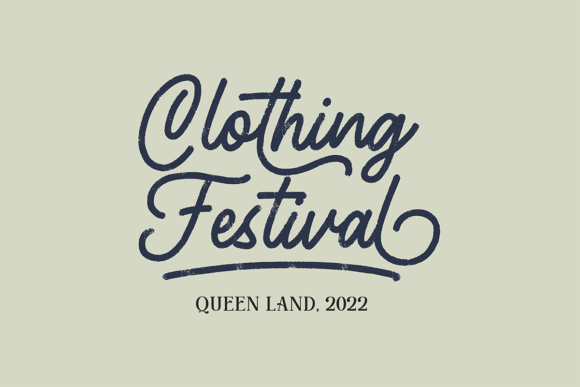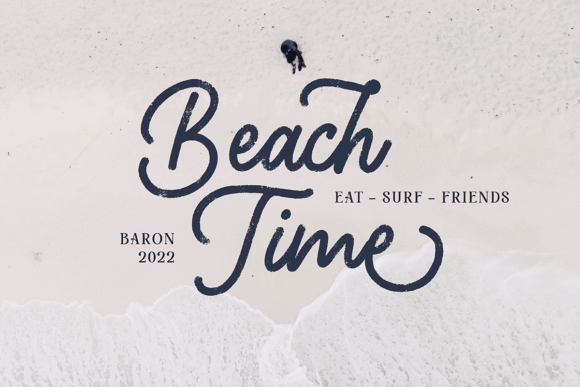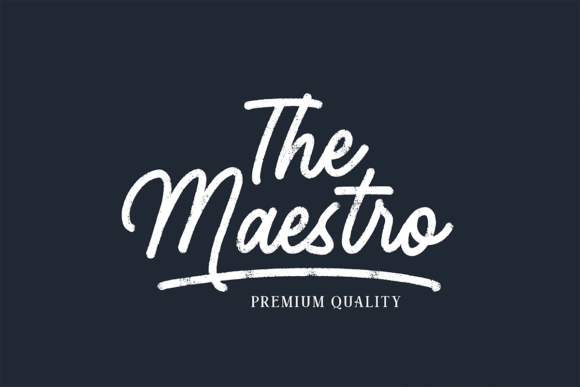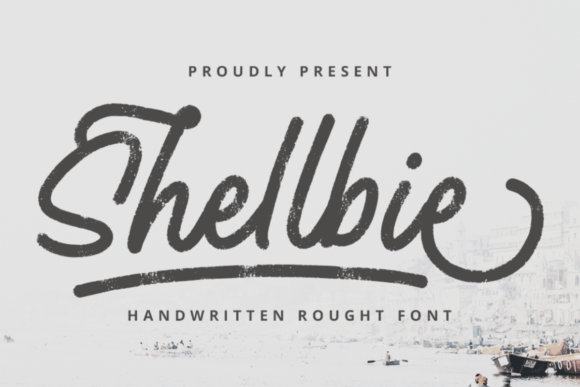
Introduction to Shellbie Font
Shellbie is a sweet and beautiful handwritten font.
Make your projects dance with this elegant and wonderful font wherever you use it Add it your headings, logos, ads, printed quotes, packaging, websites, social media posts, branding, and many more, and it will make your designs come alive.
Shellbie Font offers exceptional quality and versatility, making it a valuable addition to your design toolkit. Whether you’re creating for personal projects or commercial use, Shellbie Font delivers professional results.